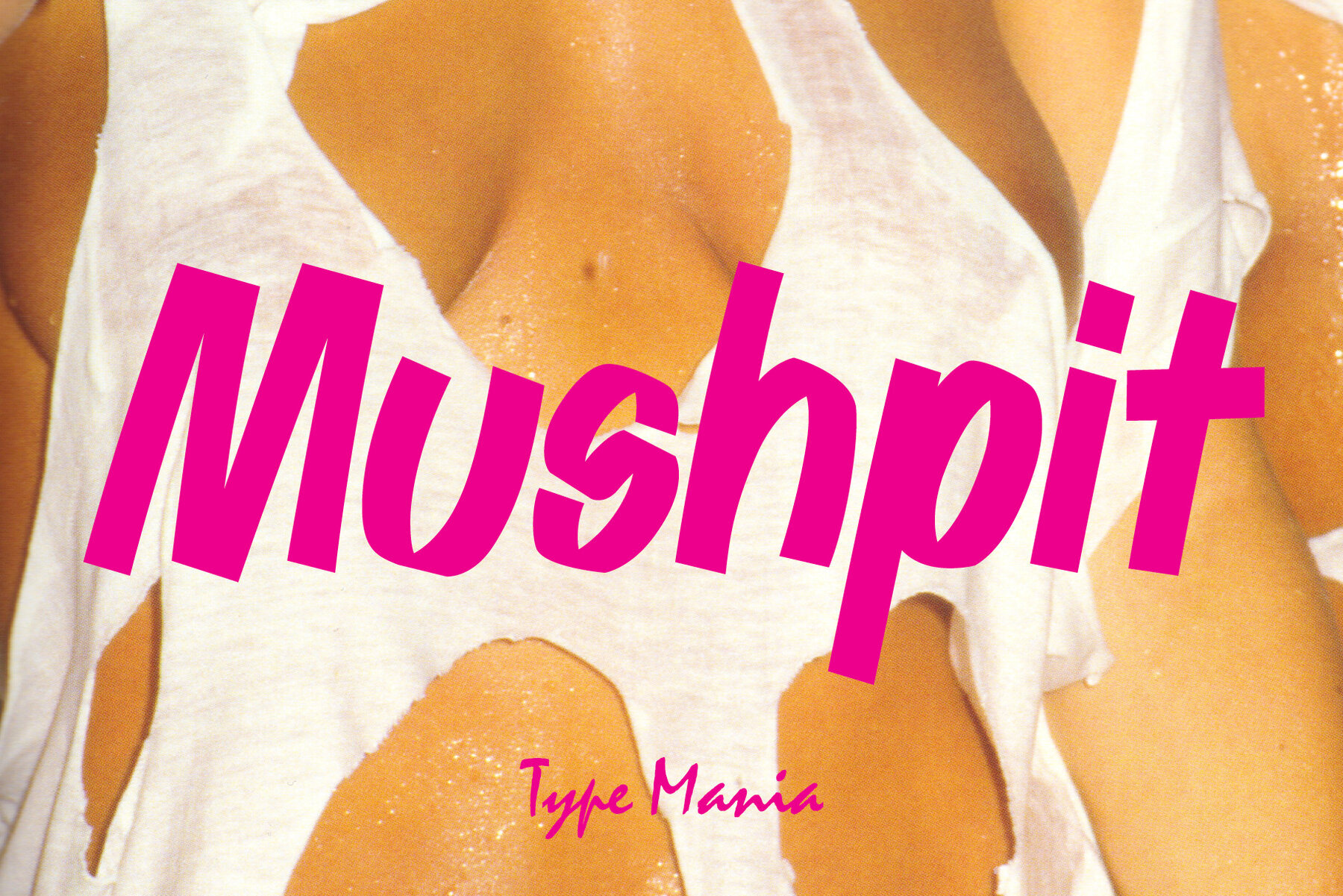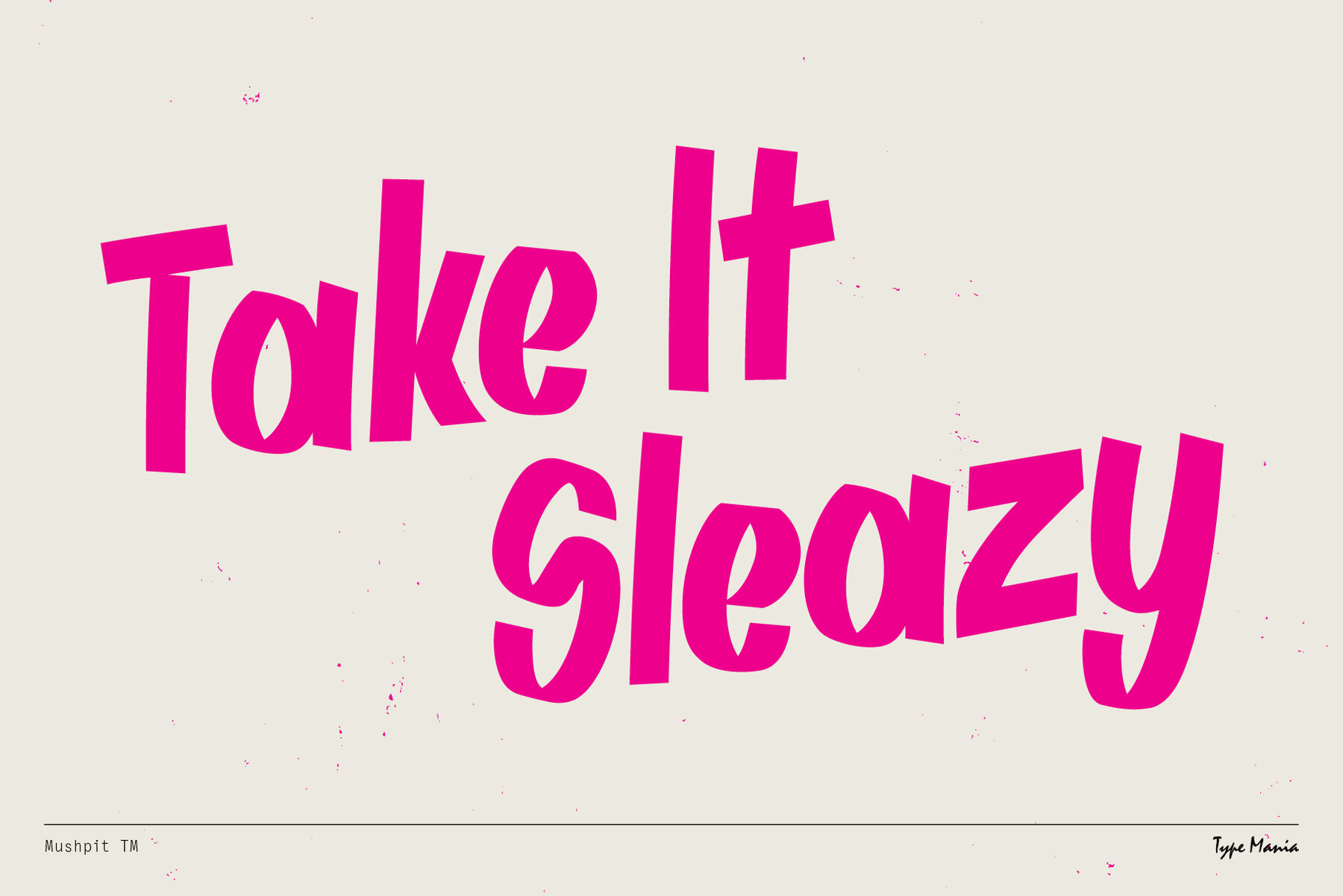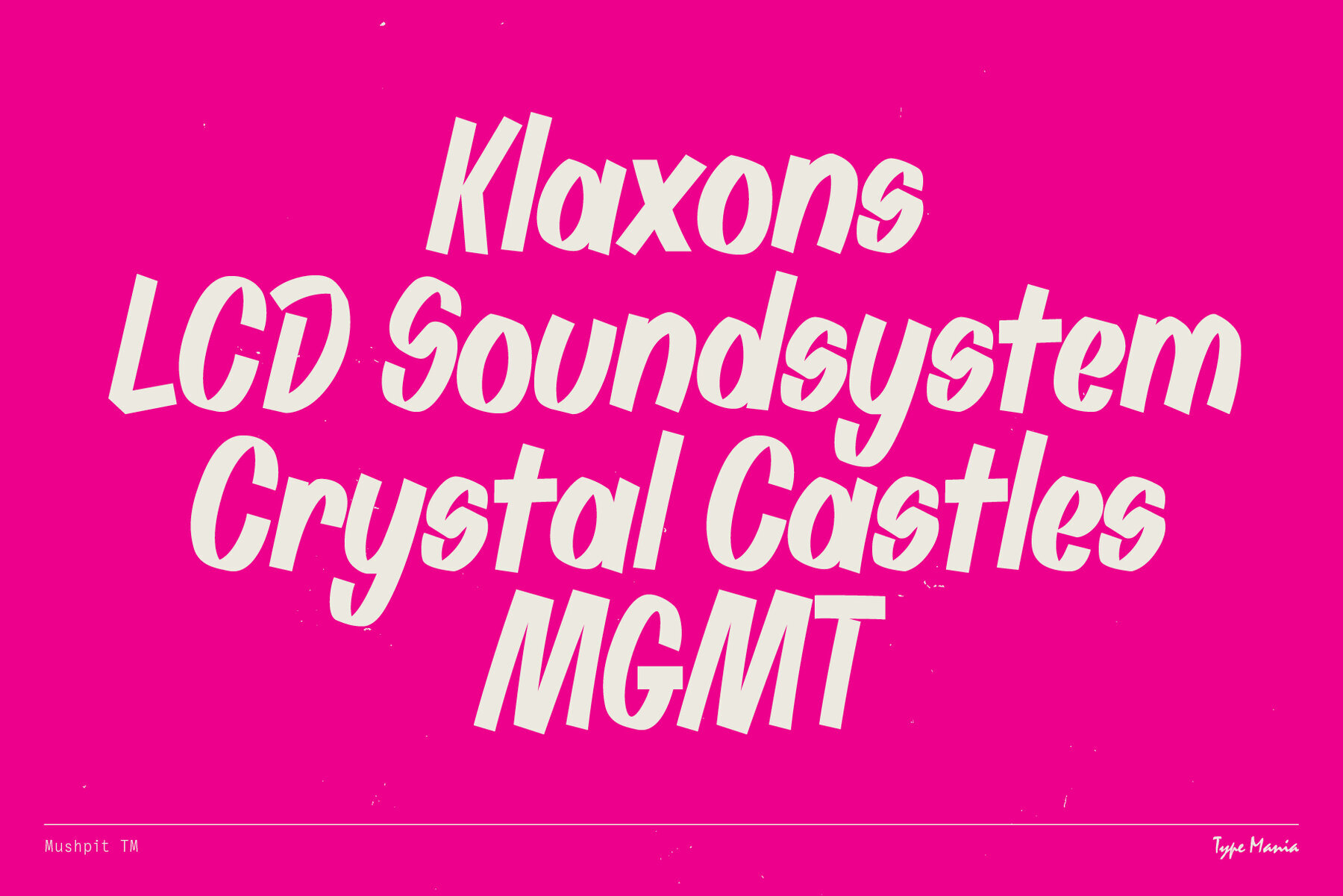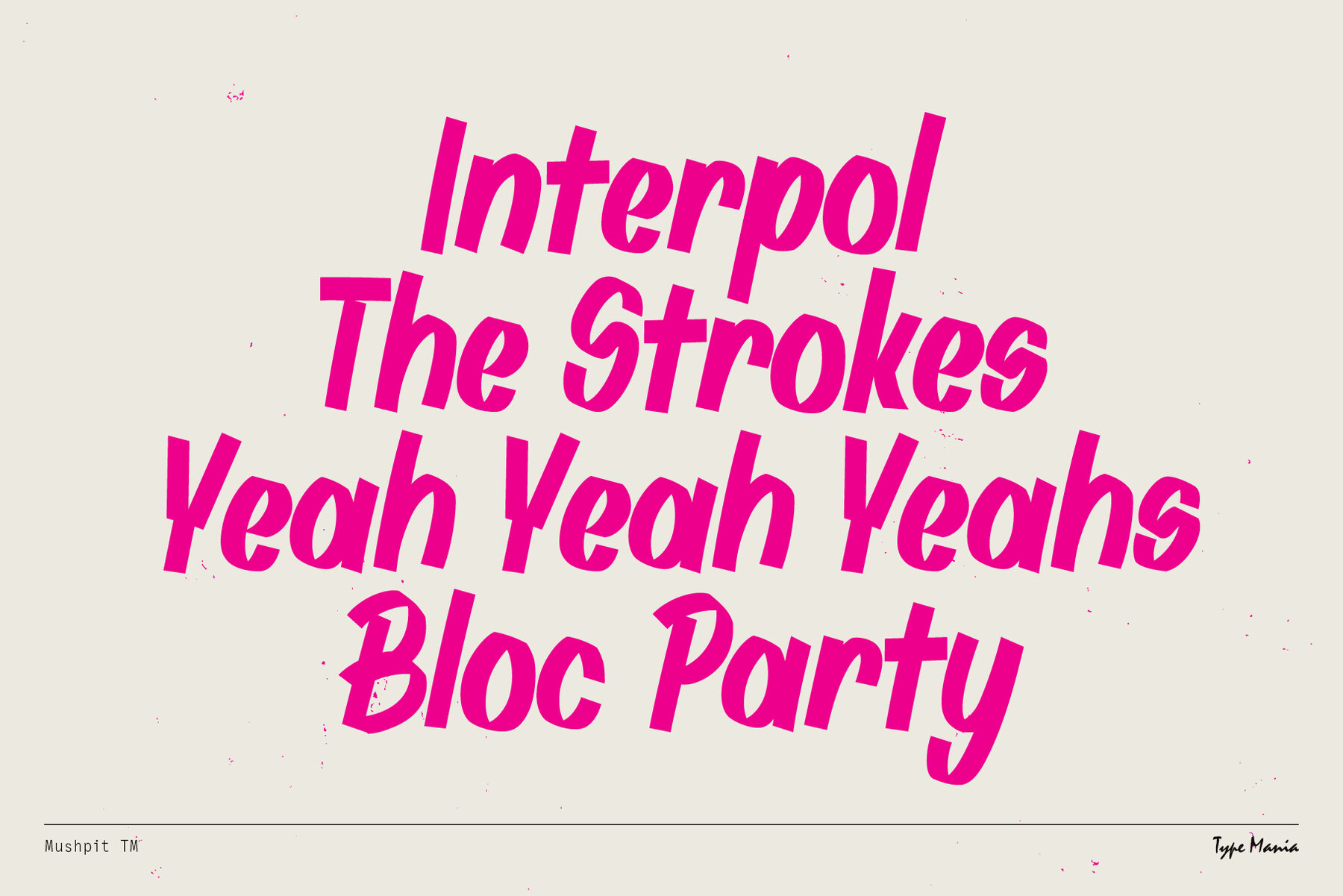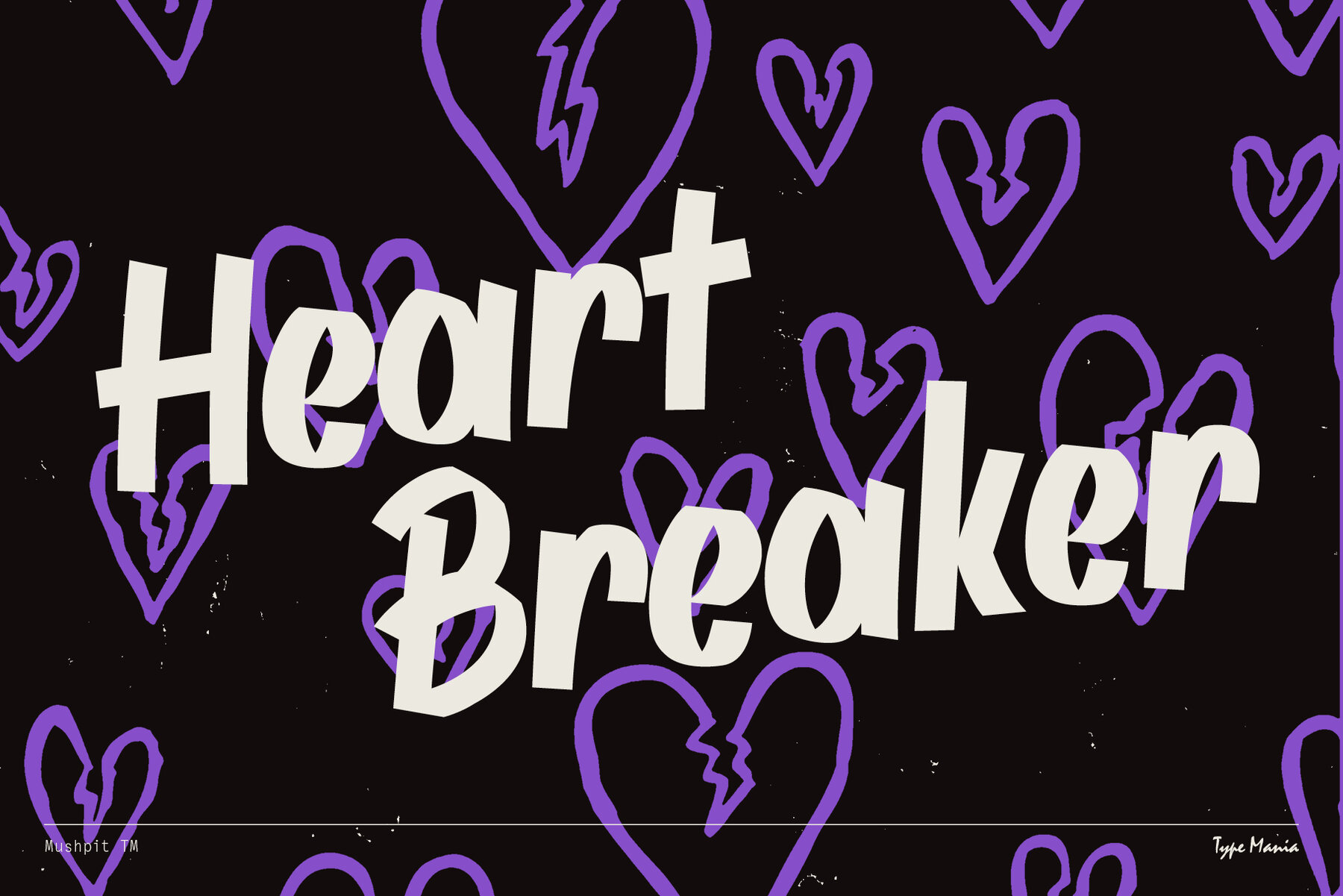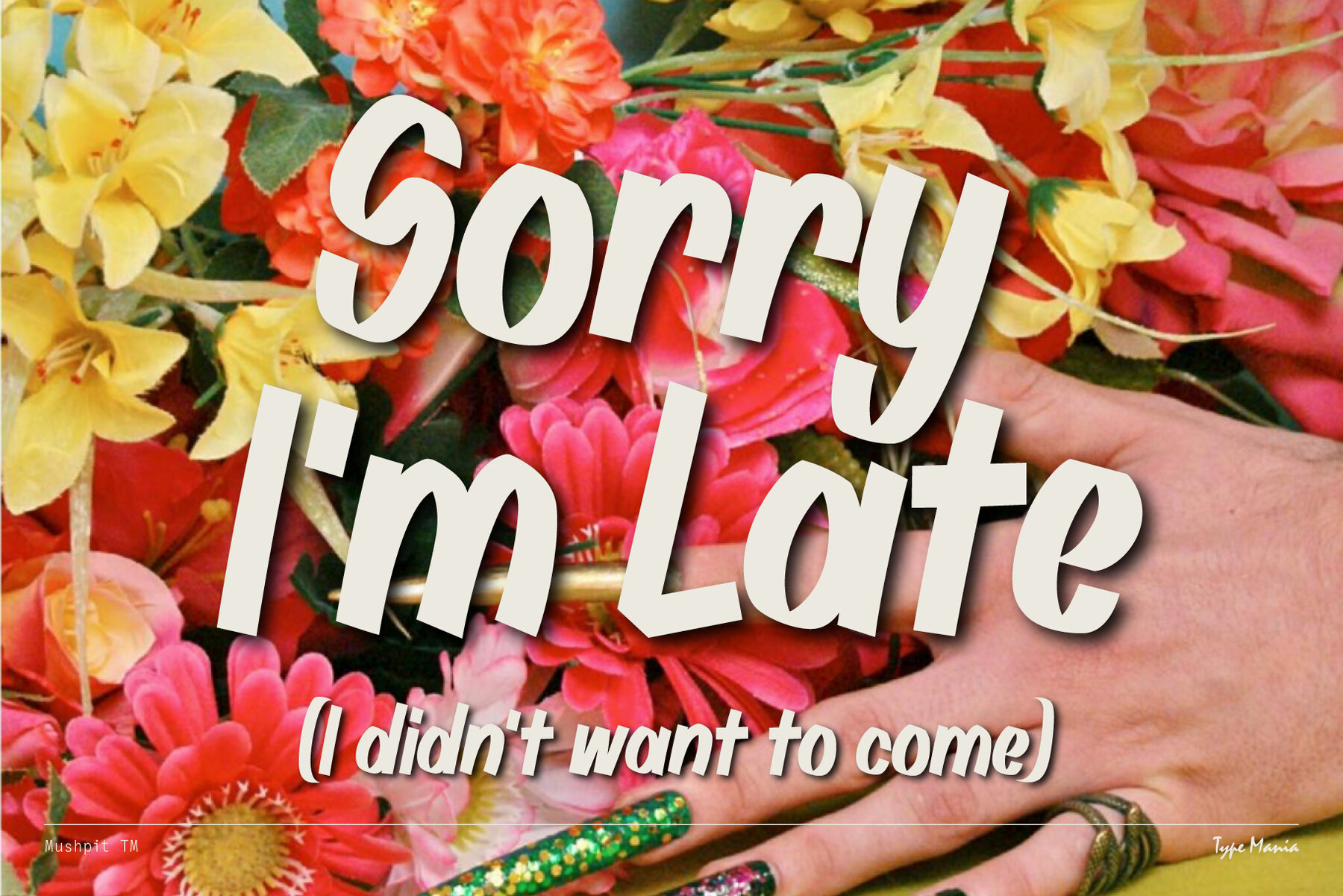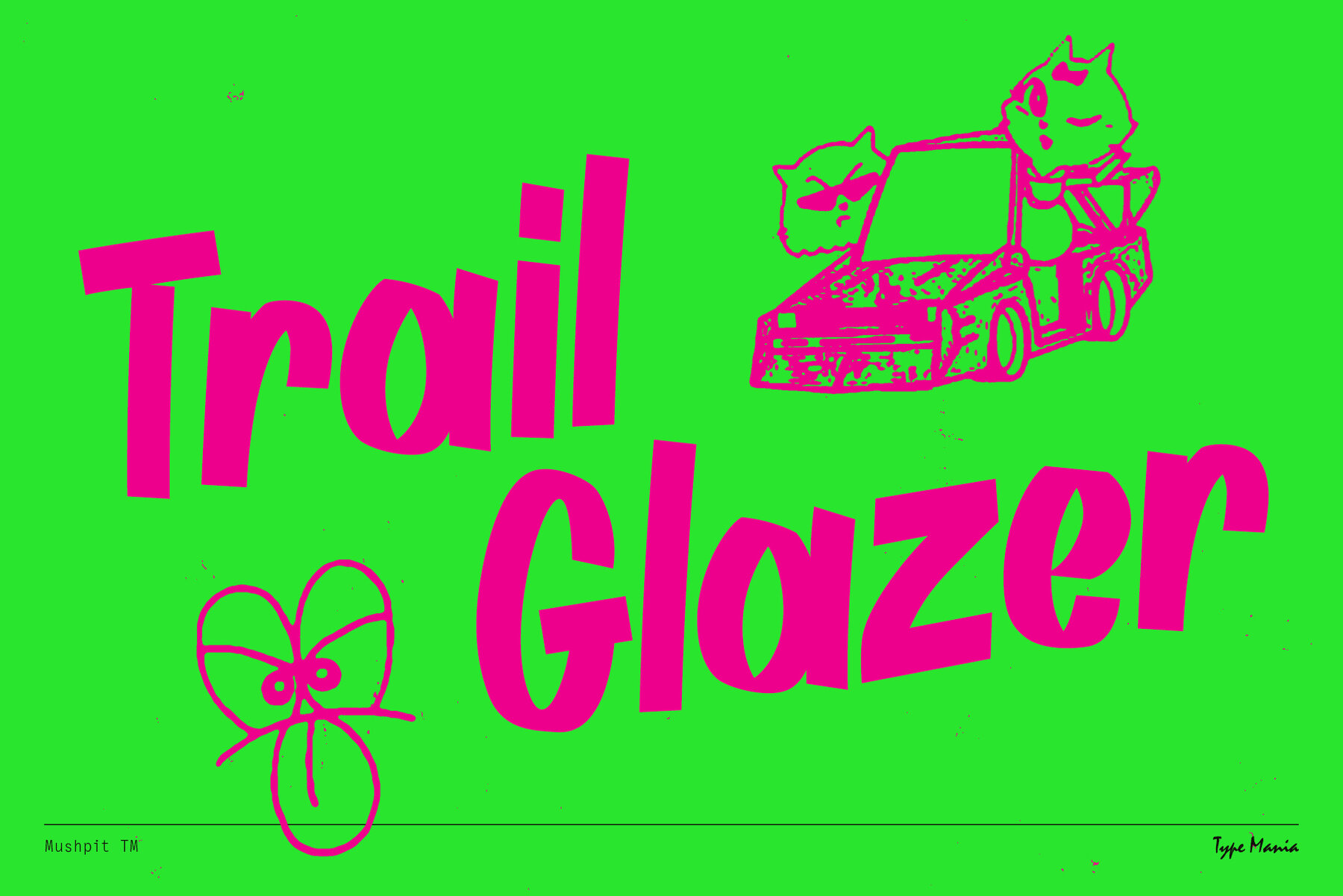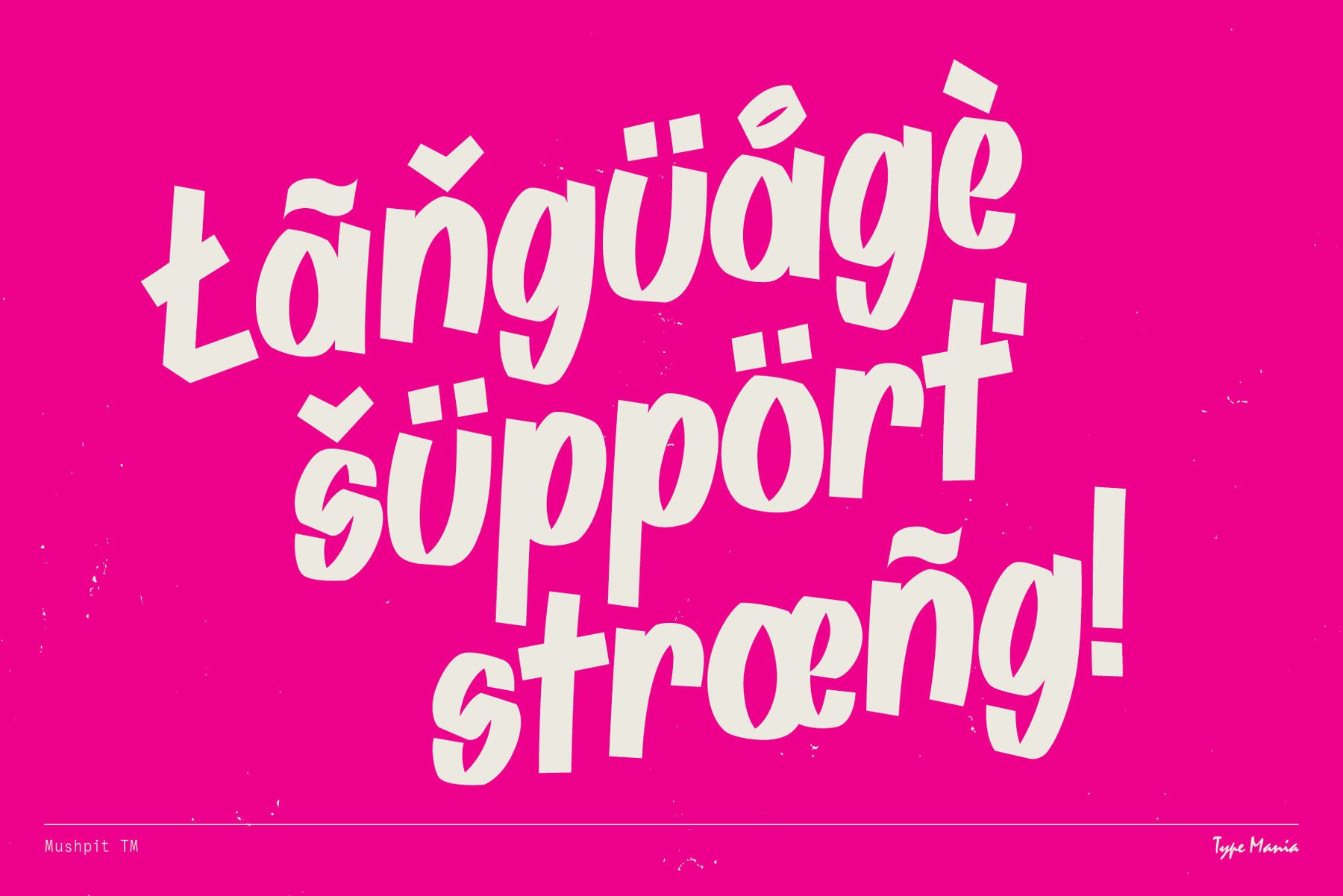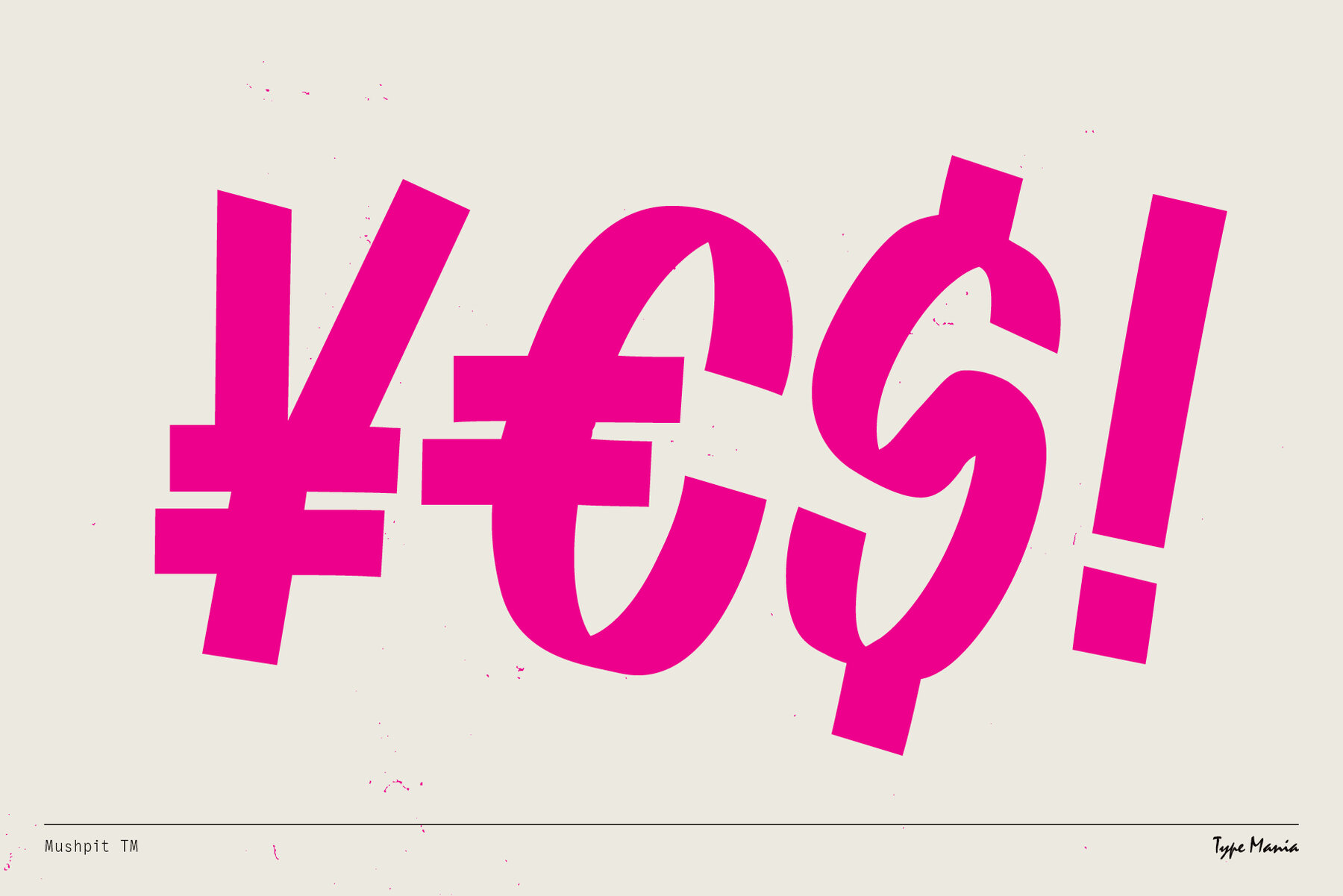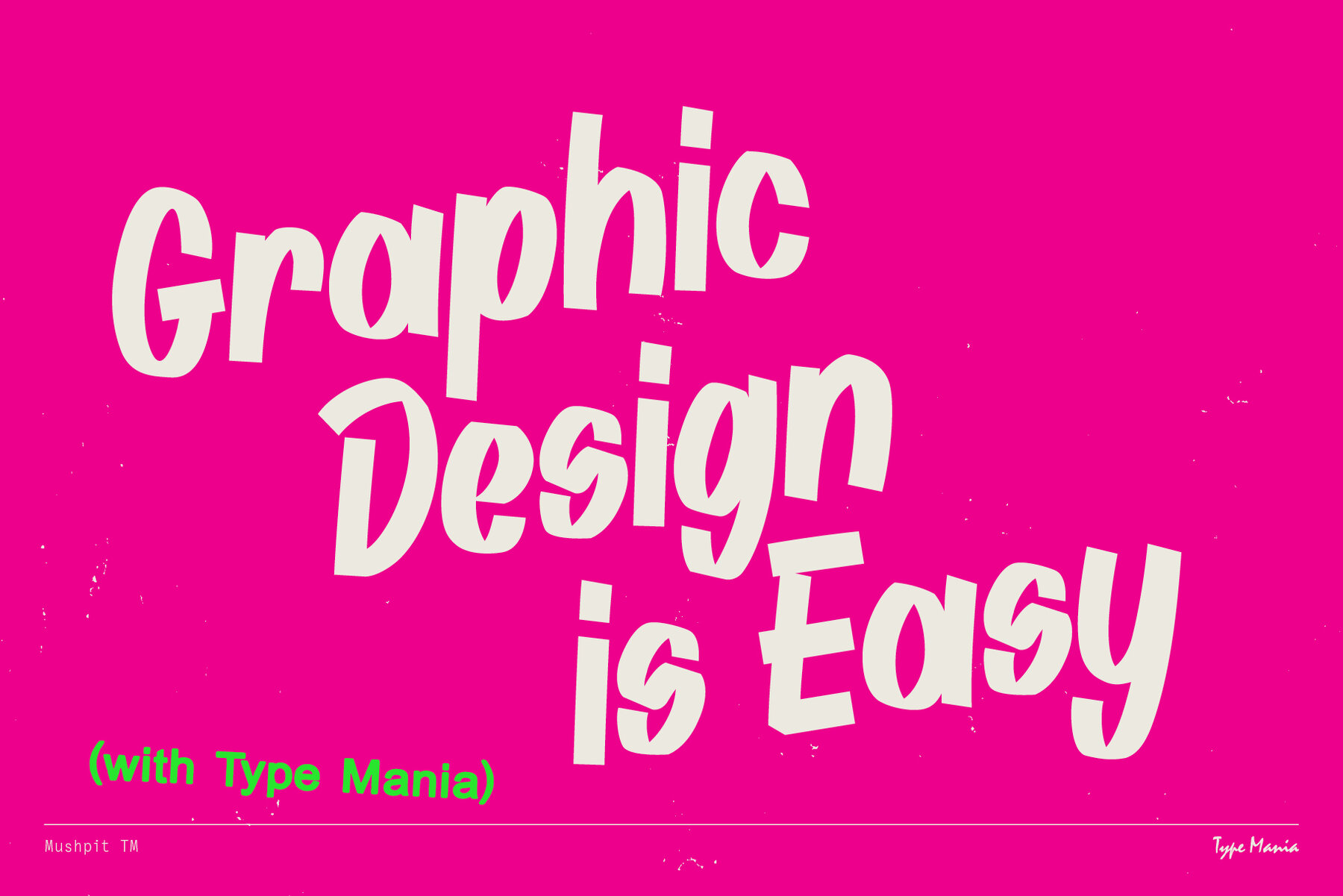
Mushpit TM Font
Mushpit TM Regular
Get familiar with Mushpit TM—the grubby marker font from Type Mania. Bold without trying too hard, rough but intentional. Designed for those who trust instinct over perfection. No filter. Languages Graphic Design is Easy (with Type Mania)®